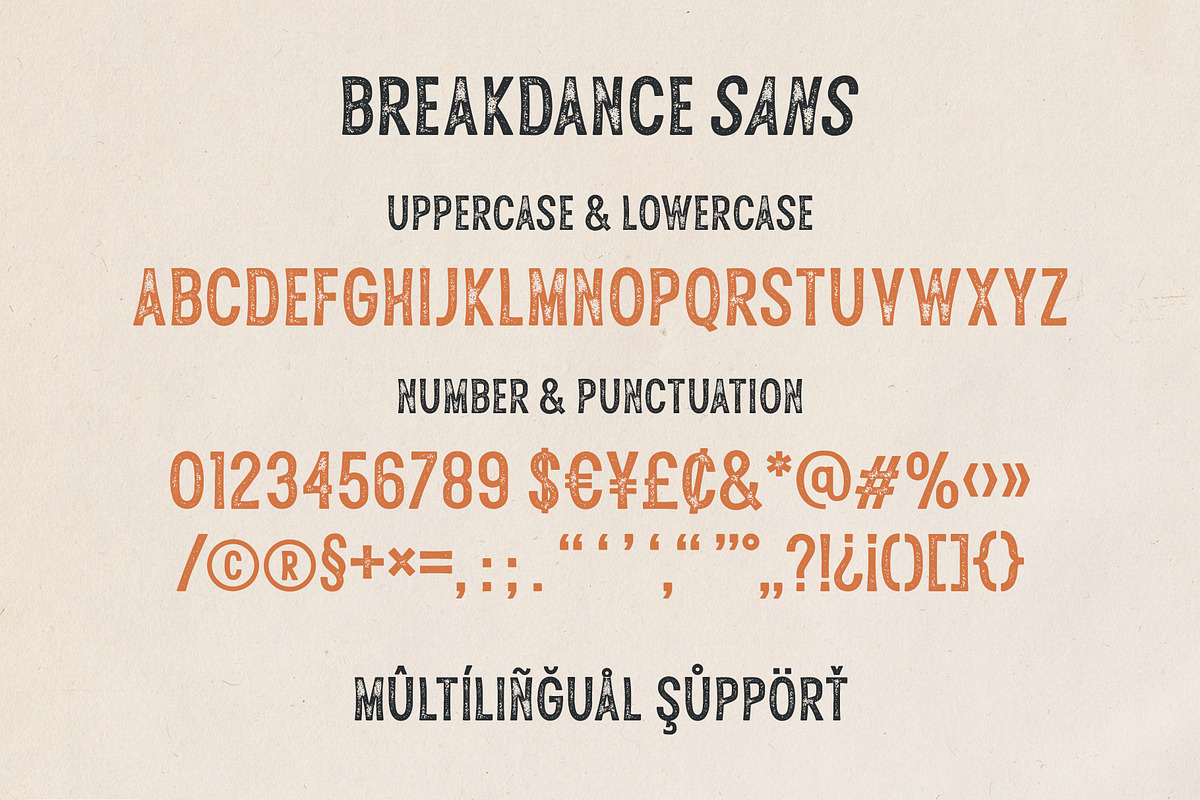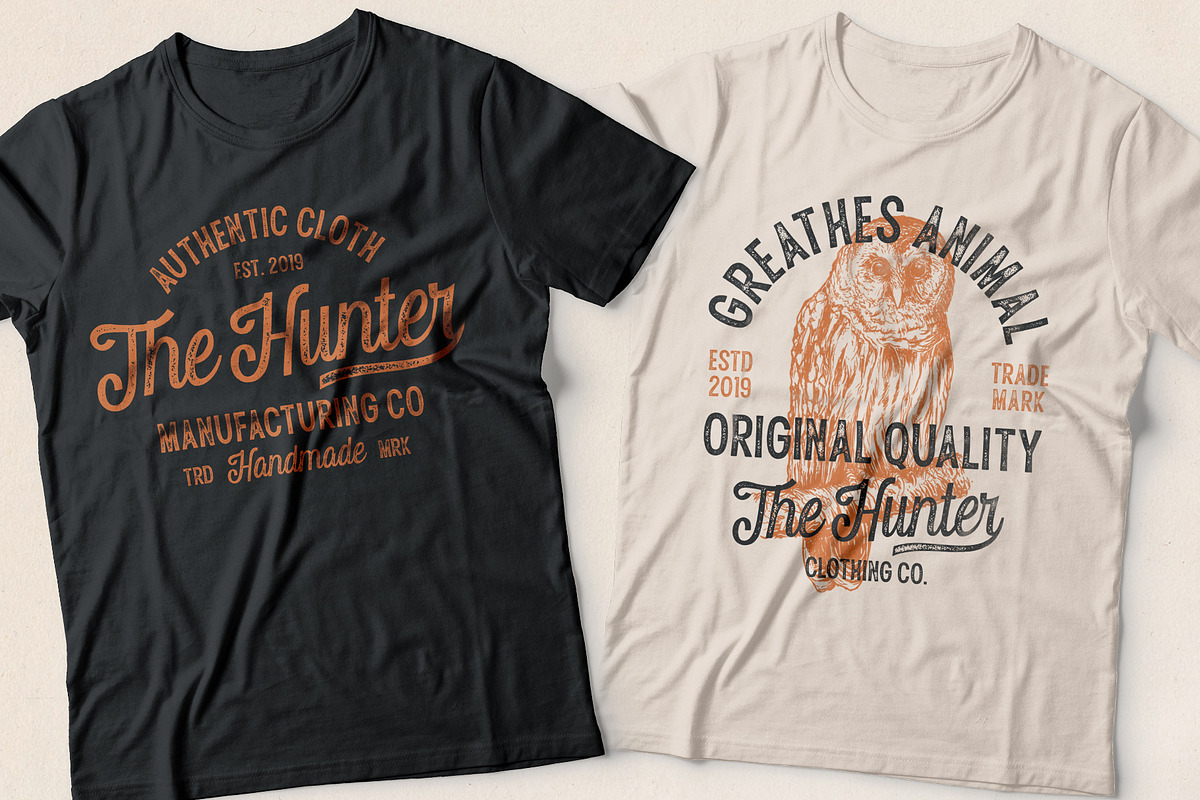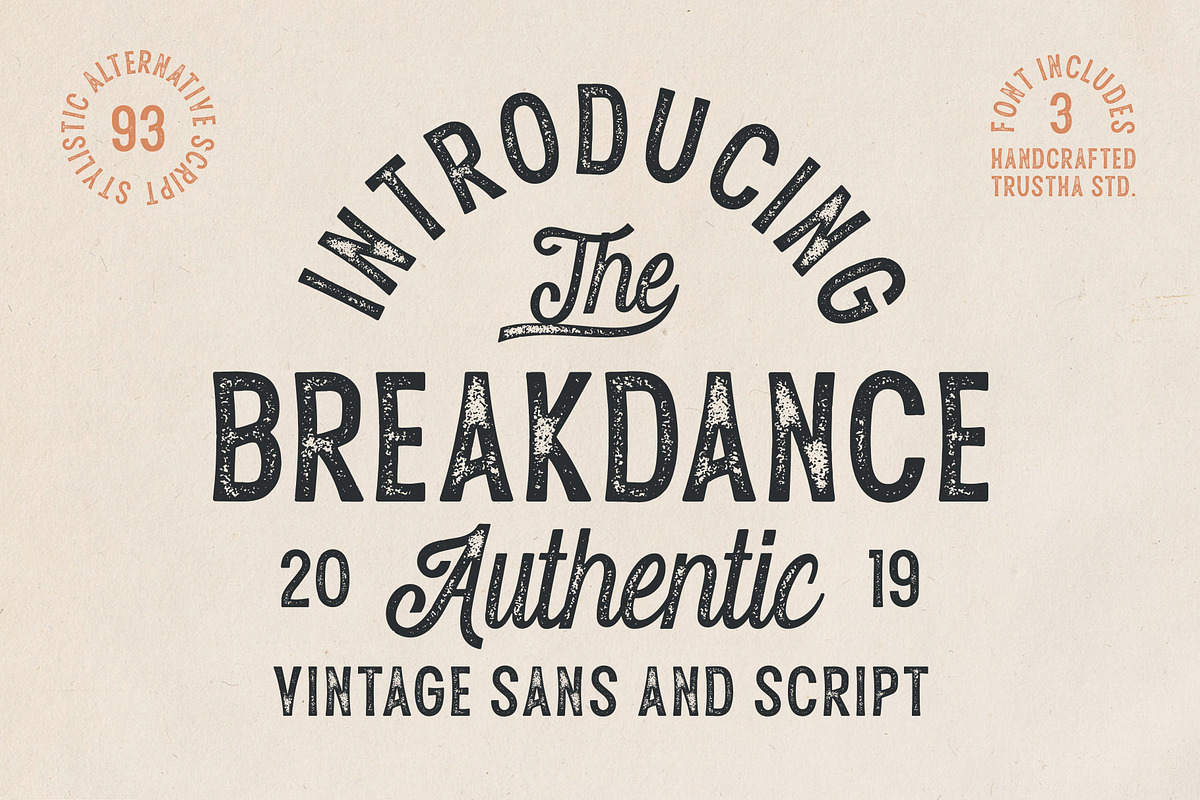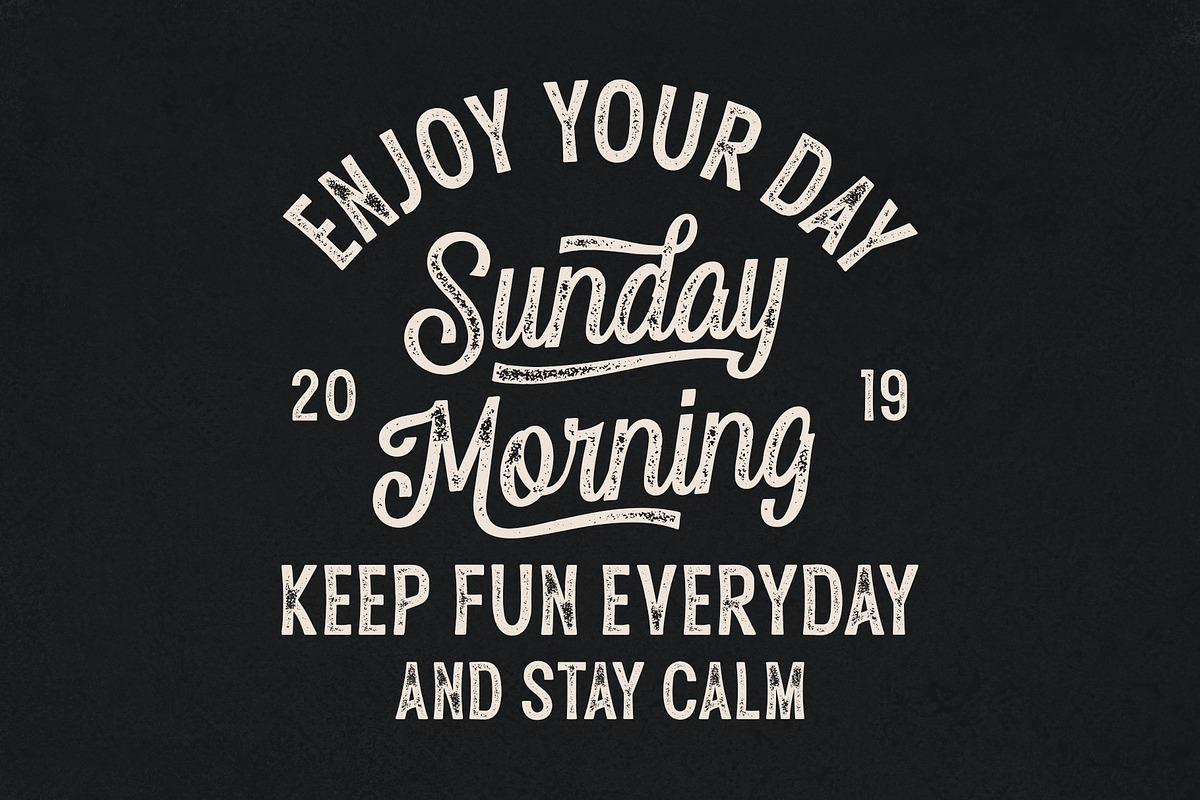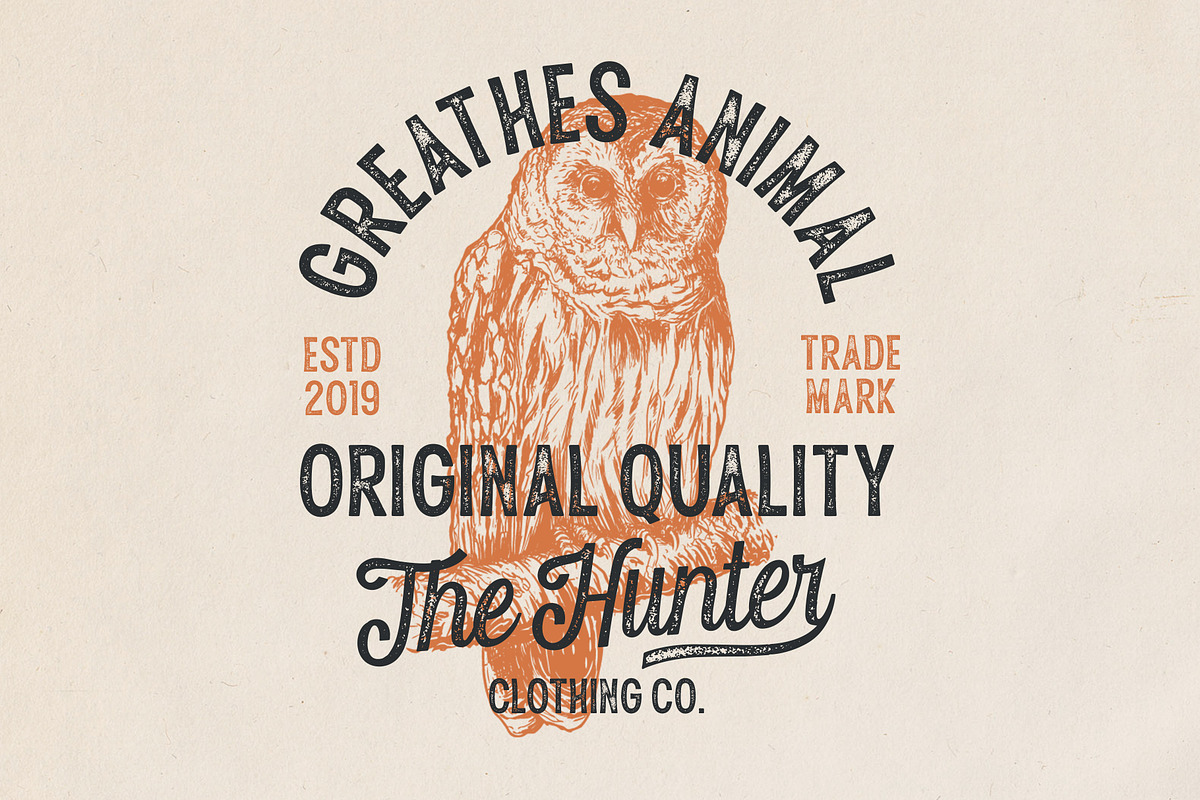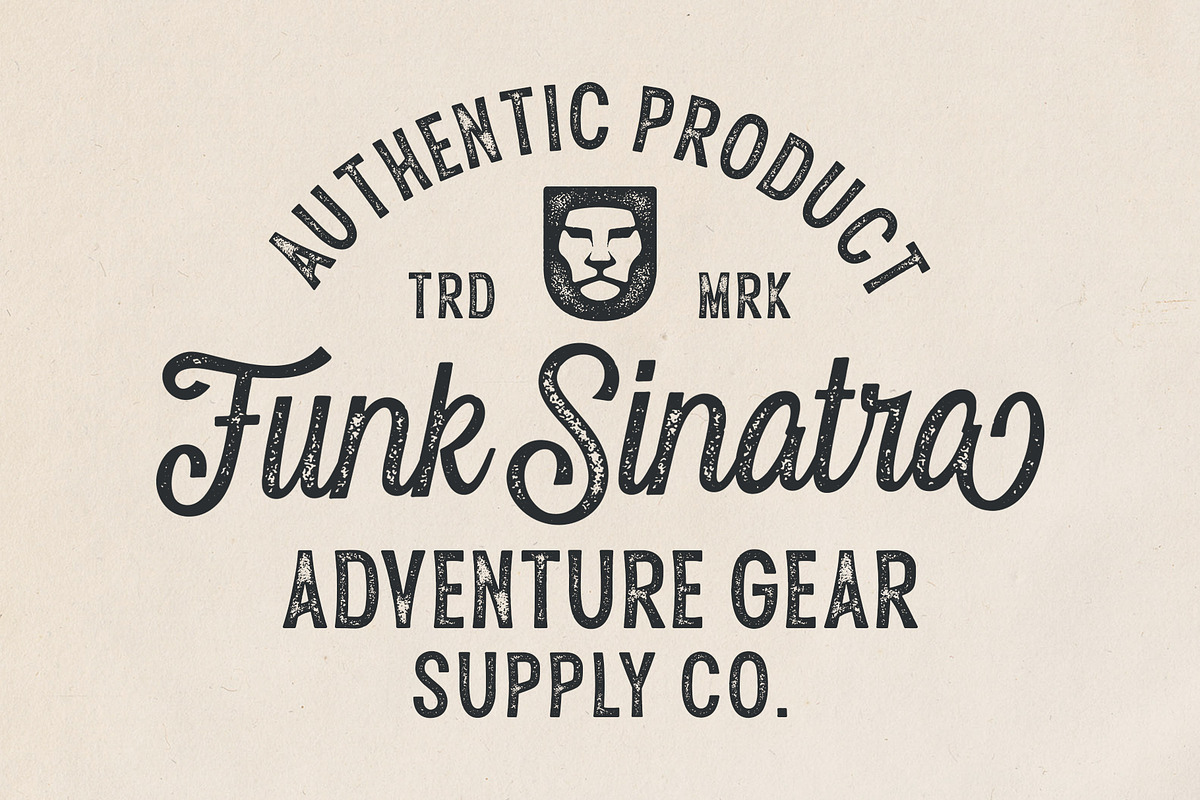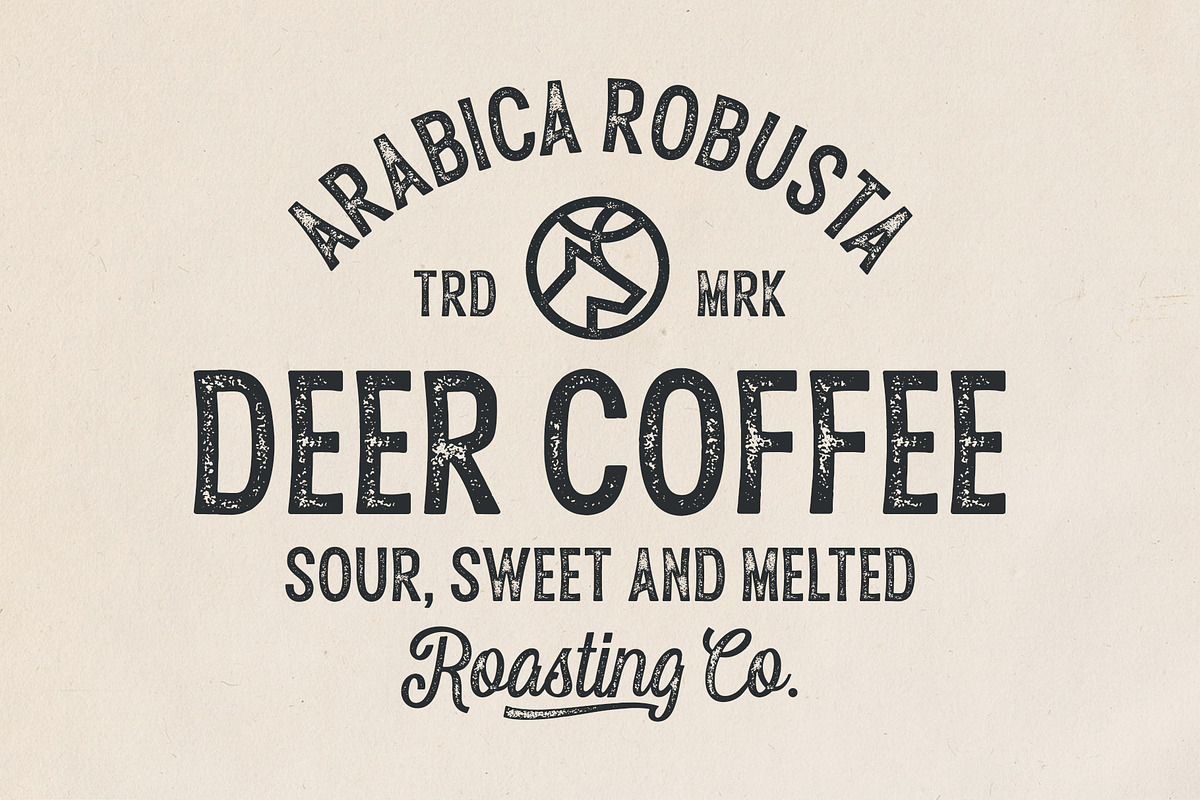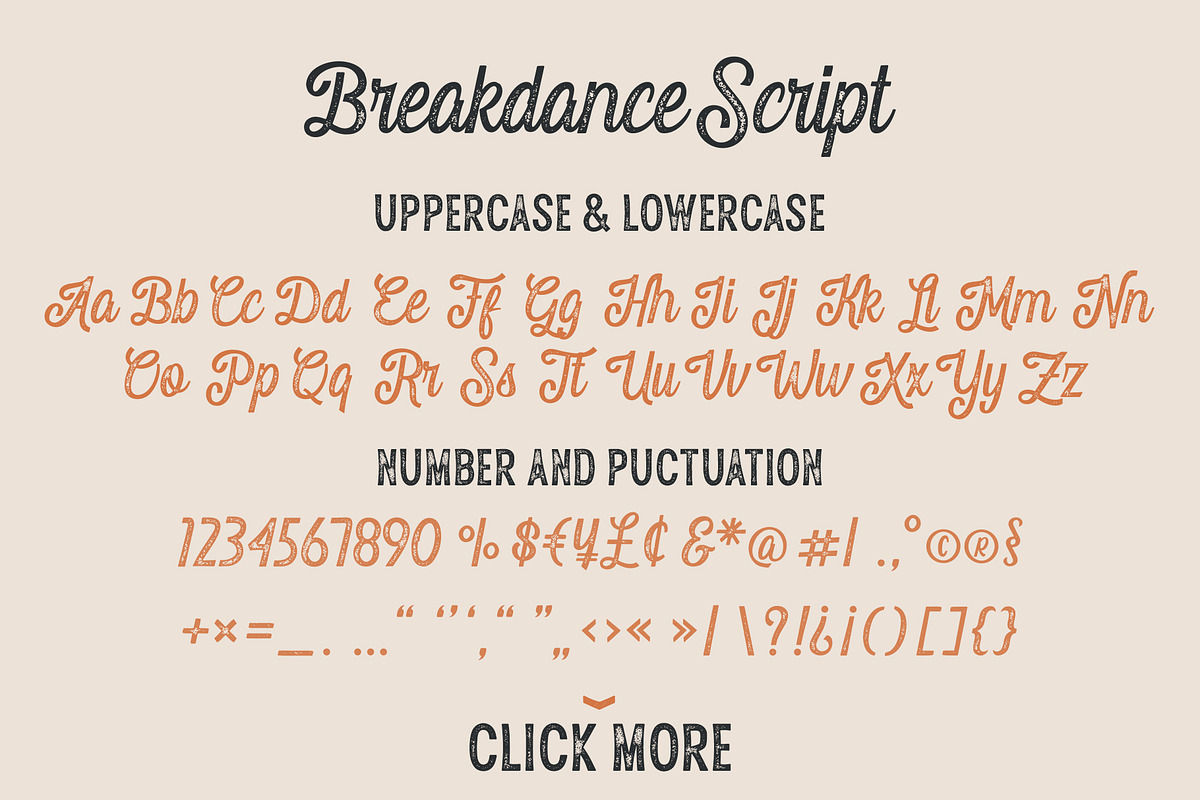
Breakdance Vintage Font
Breakdance is a vintage font duo. Combination of sans and script with sharp textures making all your creative projects get a vintage and authentic impresion!
Breakdance Vintage Font by trustha fits naturally into Branding, posters, packaging, typography.